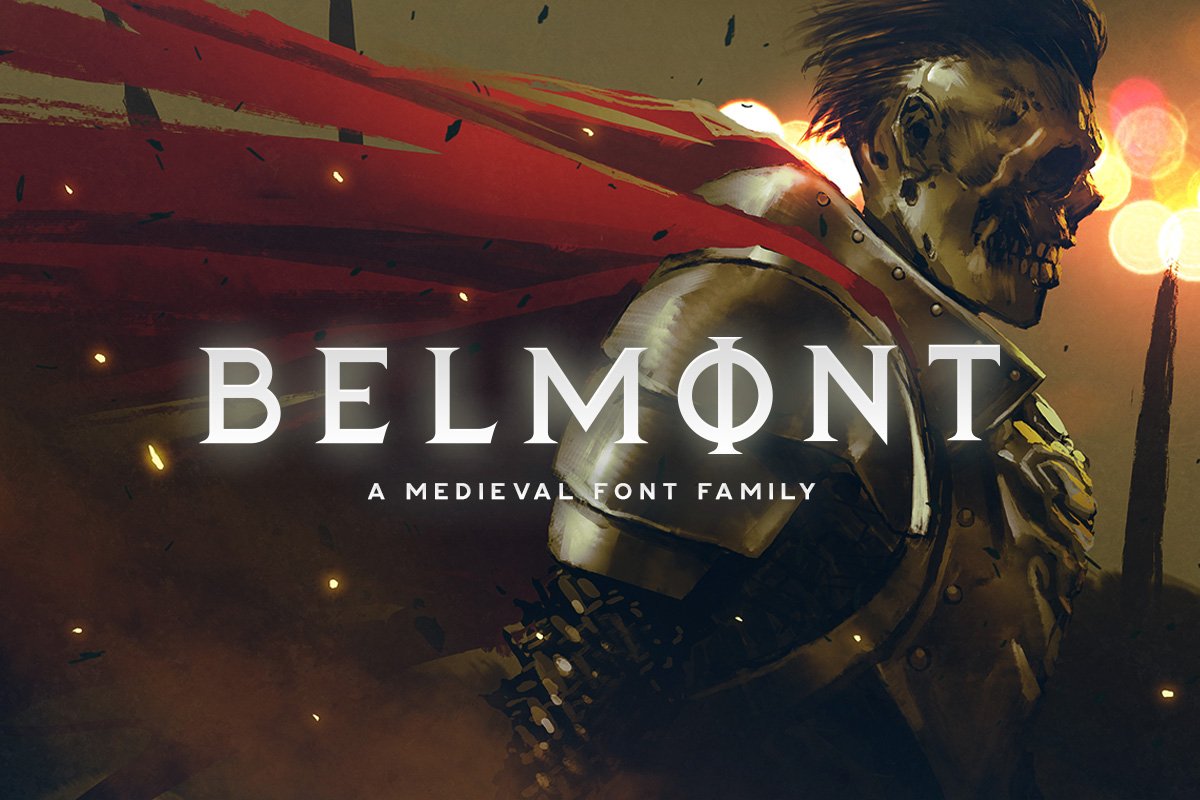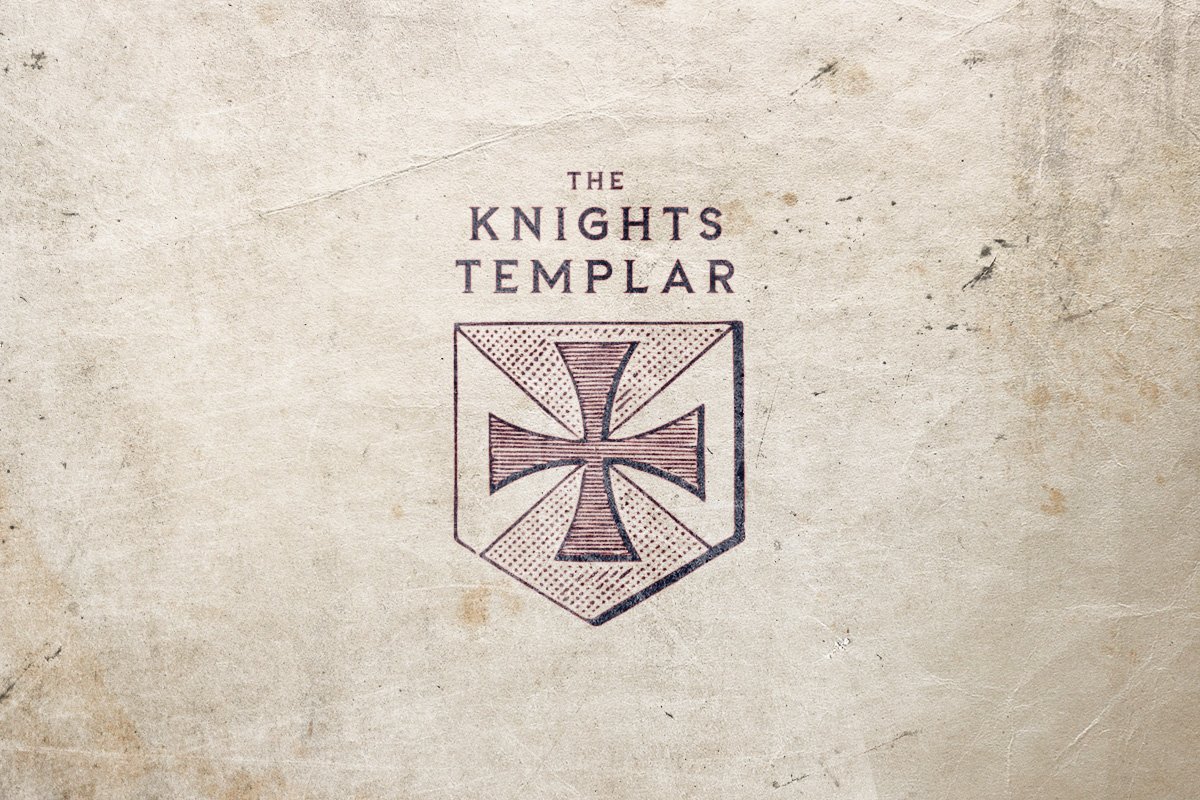
About the Belmont Typeface
Belmont is a medieval font family with three distinct styles, It includes uppercase multilingual letters, alternate letters, numbers and punctuation, About the AuthorHeya, I’m Mehmet Reha Tugcu, a UI and Type designer, Feel free to contact me via my website from the link below if you have any questions, https://www, tugcu, co/about